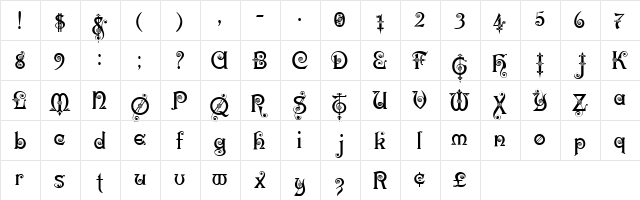
Karnac Karnac Font Preview
Karnac Karnac
Karnac Karnac Font Details
| Designer | John F. Cumming 1884 |
Design Context for Karnac Typeface
Karnac is a composed and adaptable typeface that performs quietly and consistently across a wide range of design contexts.